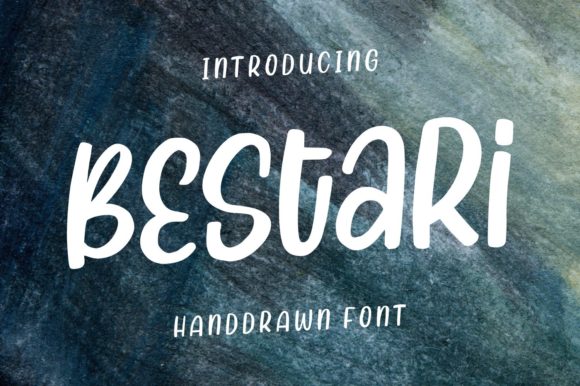
Unleash Your Creativity with Bestari Font: The Ultimate Display Font for Stunning Designs
Are you tired of using the same old fonts for your designs? Look no further! Bestari Font is here to revolutionize your creative projects with its thick, lettered, and authentic display style. This incredibly versatile font is perfect for designers and crafters who want to add a touch of uniqueness to their work. In this article, we’ll dive into the world of Bestari Font and explore its features, benefits, and uses.
What is Bestari Font?
Bestari Font is a display font designed to make a statement. Its thick, bold letters exude confidence and style, making it perfect for headlines, titles, and other display purposes. The font’s authentic and modern design ensures that it stands out from the crowd, giving your designs a fresh and contemporary look.
Key Features of Bestari Font
• Thick and Bold Letters: Bestari Font features thick and bold letters that grab attention and make a statement.
• Incredibly Versatile: The font’s versatility makes it suitable for a wide range of design projects, from posters and flyers to logos and branding.
• Authentic and Modern Design: Bestari Font’s authentic and modern design ensures that your designs look fresh and contemporary.
• Easily Readable: Despite its bold style, Bestari Font is easily readable, making it perfect for use in various design projects.
Benefits of Using Bestari Font
So, why should you choose Bestari Font for your design projects? Here are just a few benefits of using this amazing display font:
• Adds Visual Impact: Bestari Font’s thick and bold letters add visual impact to your designs, making them stand out from the crowd.
• Enhances Creativity: The font’s versatility and unique style inspire creativity and help you think outside the box.
• Saves Time: With Bestari Font, you can create stunning designs in no time, thanks to its easily readable and versatile style.
• Perfect for Branding: Bestari Font is perfect for branding and logo design, as it helps create a strong and memorable visual identity.
How to Use Bestari Font
Who Can Benefit from Bestari Font?
Bestari Font is perfect for a wide range of designers and crafters, including:
• Graphic Designers: Graphic designers can use Bestari Font to create stunning designs for clients.
• Logos and Branding Experts: Logos and branding experts can use Bestari Font to create strong and memorable visual identities.
• Crafters and Makers: Crafters and makers can use Bestari Font to add a personal touch to their handmade products.
• Digital Artists: Digital artists can use Bestari Font to add a unique and creative element to their artwork.
In conclusion, Bestari Font is an incredible display font that can elevate your designs to the next level. Its thick, lettered, and authentic style makes it perfect for a wide range of design projects. With its versatility, readability, and visual impact, Bestari Font is a must-have for designers and crafters who want to create stunning designs. So, fall in love with Bestari Font and use it to create spectacular designs that leave a lasting impression!